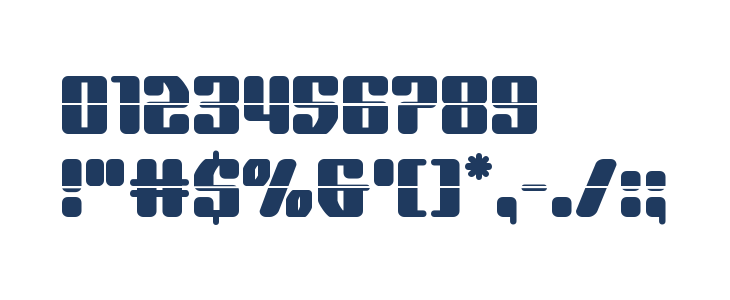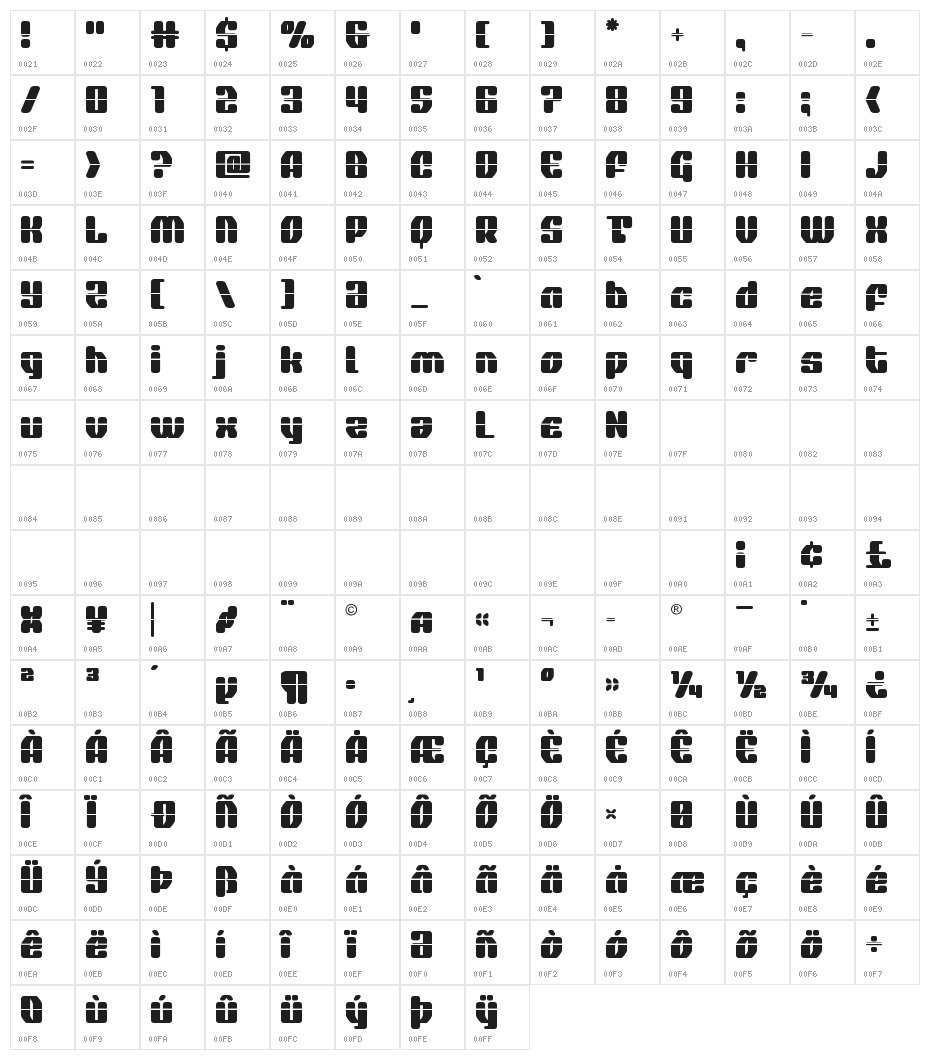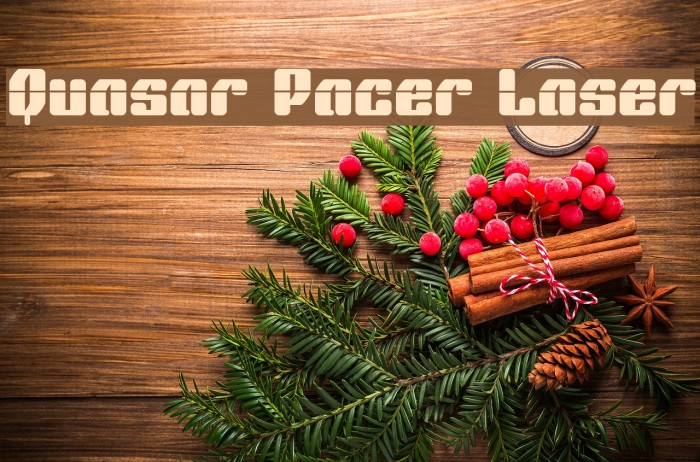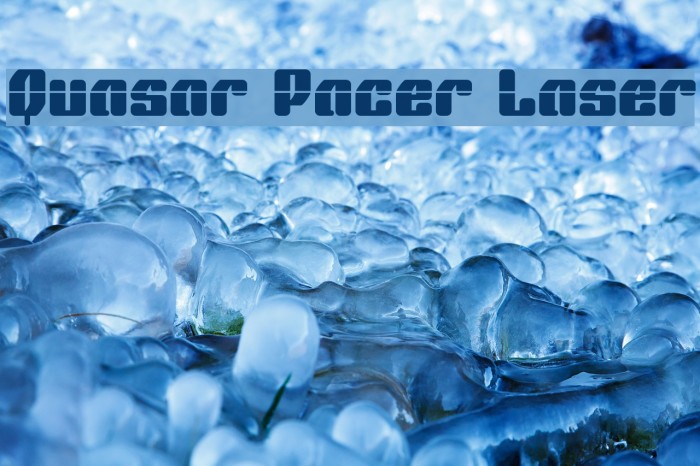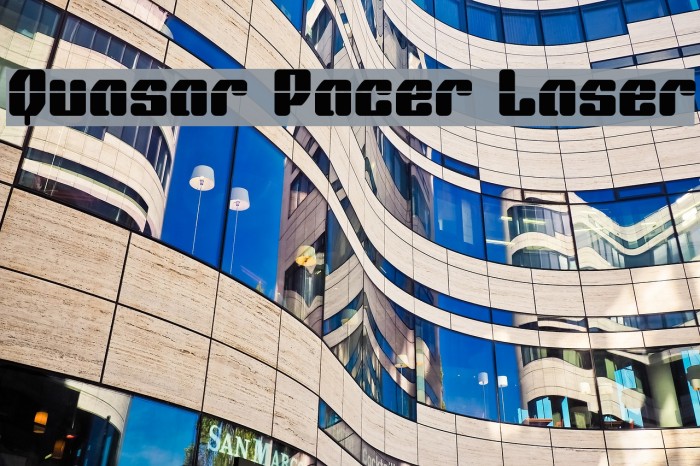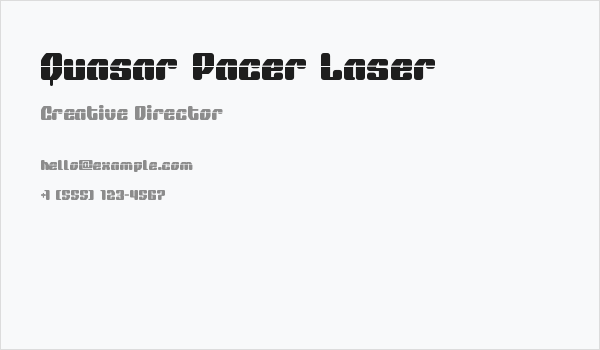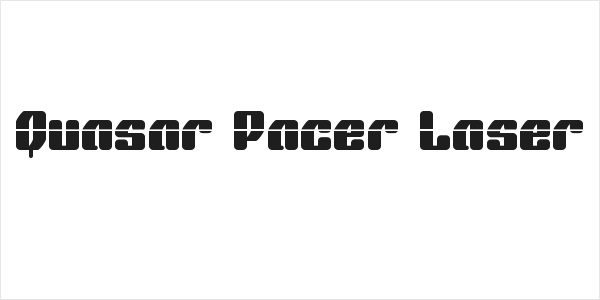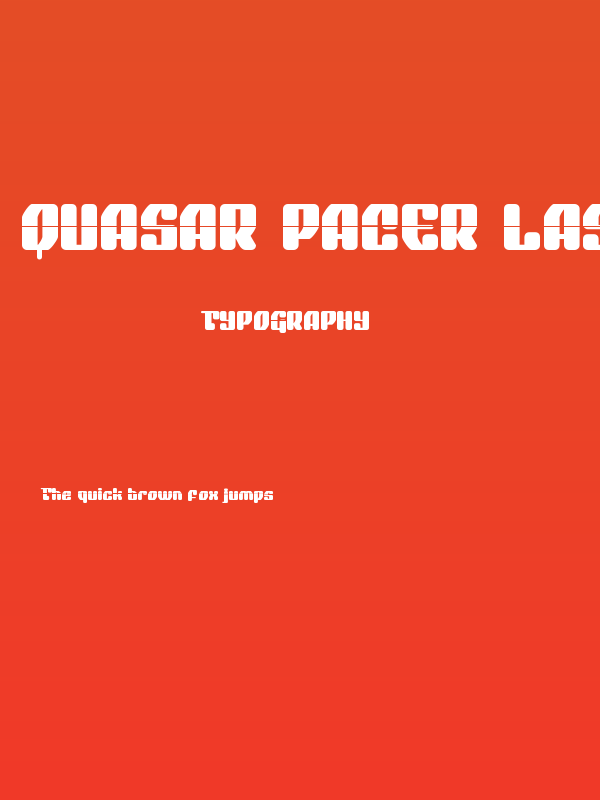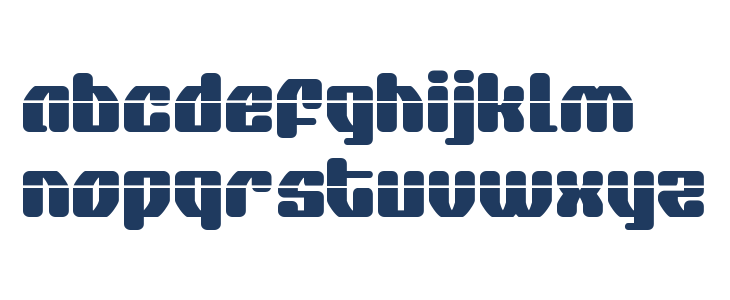
Quasar Pacer Laser Font
Quasar Pacer Laser Description
This font features a bold and futuristic design with a strong geometric structure. The characters are constructed with thick, uniform strokes that create a sense of solidity and impact. The rounded edges and consistent width give it a modern, tech-inspired appearance. The uppercase and lowercase letters maintain a cohesive style, while the numerals and special characters integrate seamlessly with the overall design. This font is ideal for projects that require a bold, eye-catching display, such as technology branding, sci-fi themes, or modern advertising.
Proposed ProjectsIdeal for technology branding, sci-fi themes, modern advertising, and bold display projects.